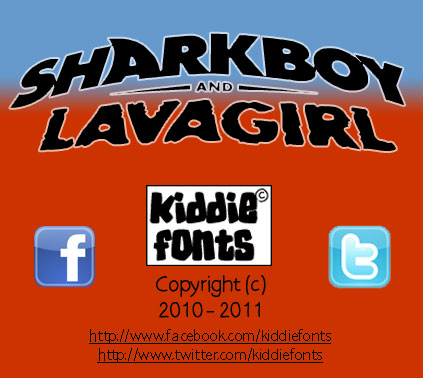
SHARKBOY & lavagirl by SpideRaY is a free distorted display font with tall, heavy lettering. Uneven edges and changing stroke widths give the letters a cut-paper roughness. The shapes lean and buckle in different directions.
Superhero stories and comic-book action are a natural match, particularly for movie posters, game graphics, and themed merchandise. Its oversized forms and restless outlines suit entertainment aimed at younger audiences, especially projects built around eccentric heroes, monsters, or exaggerated adventure.
This fan font is based on the children’s film The Adventures of SharkBoy and LavaGirl. The uppercase letters use the Shark font, and the lowercase letters use the Lava font. The full logo is encoded at the registered sign (U+00AE, ®).